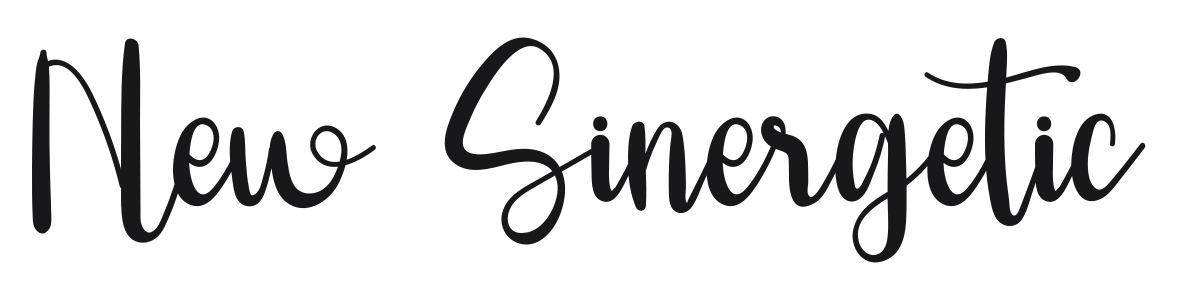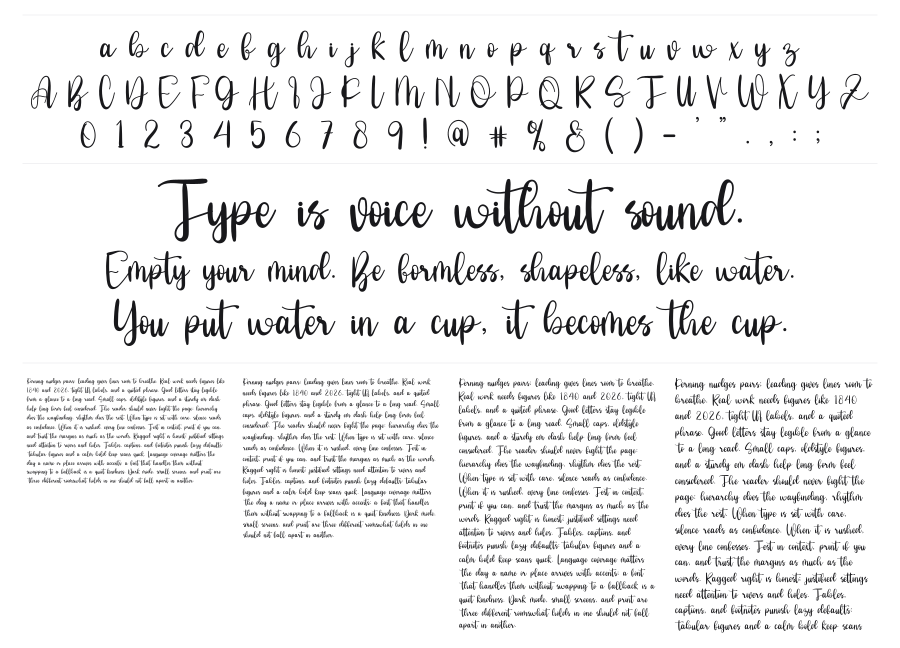
New Sinergetic
New Sinergetic is a contemporary casual script built on flowing connected strokes and generous looped ascenders. The high contrast between thick downstrokes and delicate hairlines gives it a calligraphic quality without feeling stiff or formal. It sits comfortably on wedding stationery, product packaging, and lifestyle branding.